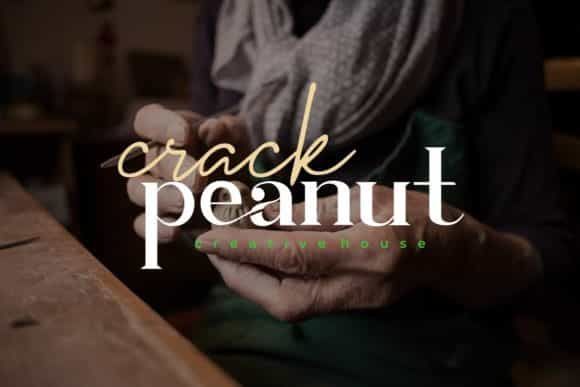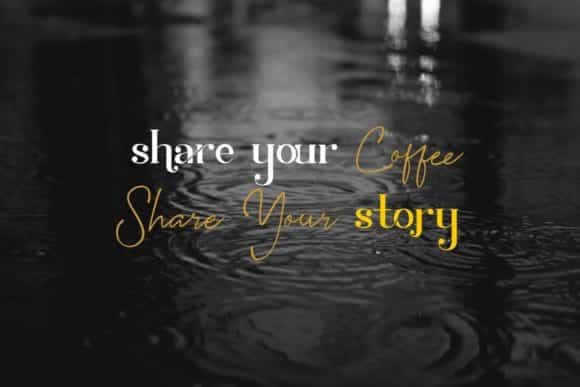
Introducing the Safiar Font Duo, a stylish and modern couple of script and serif fonts. Aesthetic didot-style serif font and a free-flowing, expressive script companion. Safiar is a wonderful source of the typographic harmony for different design projects such as logos & branding, wedding designs, social media posts, advertising & product designs.